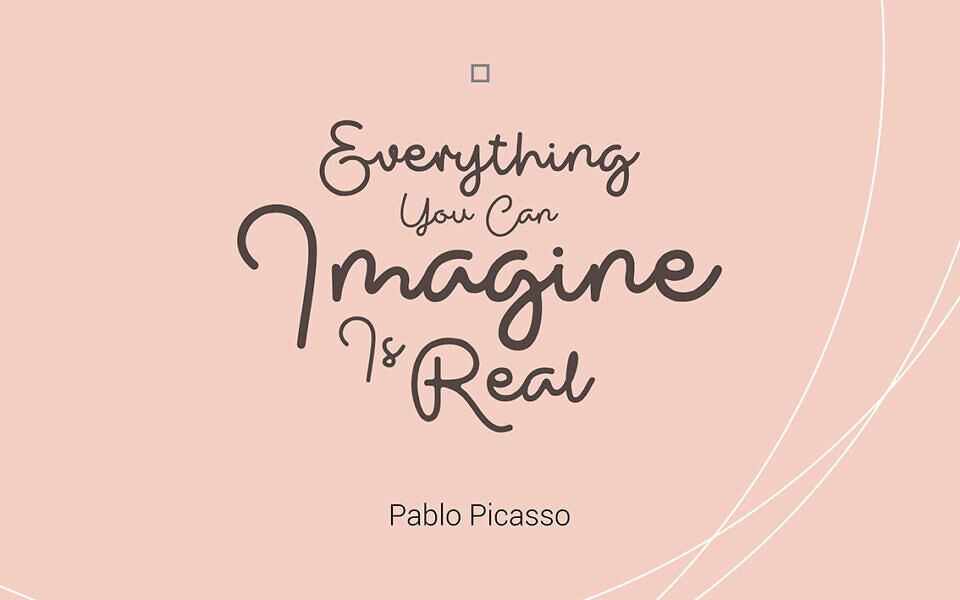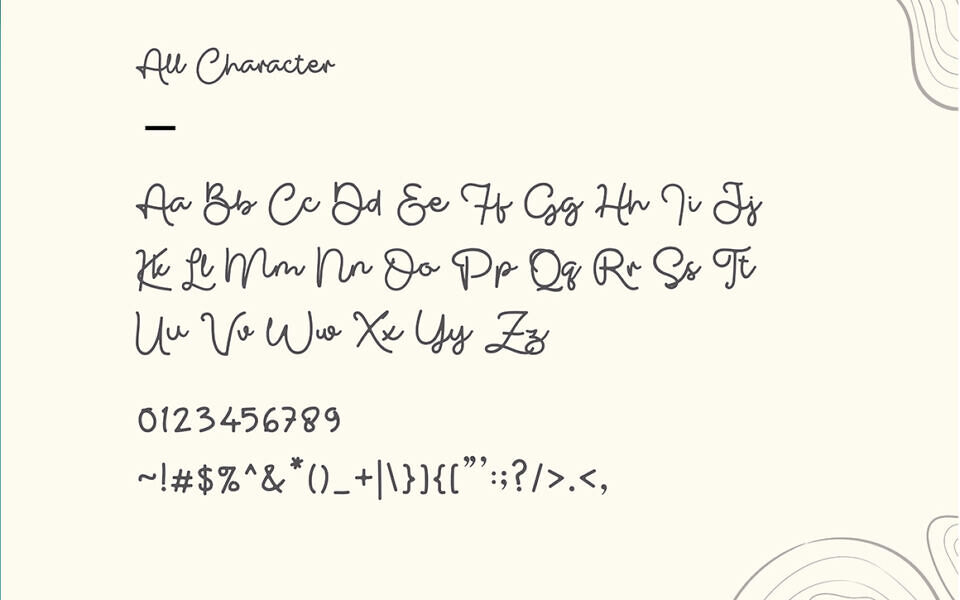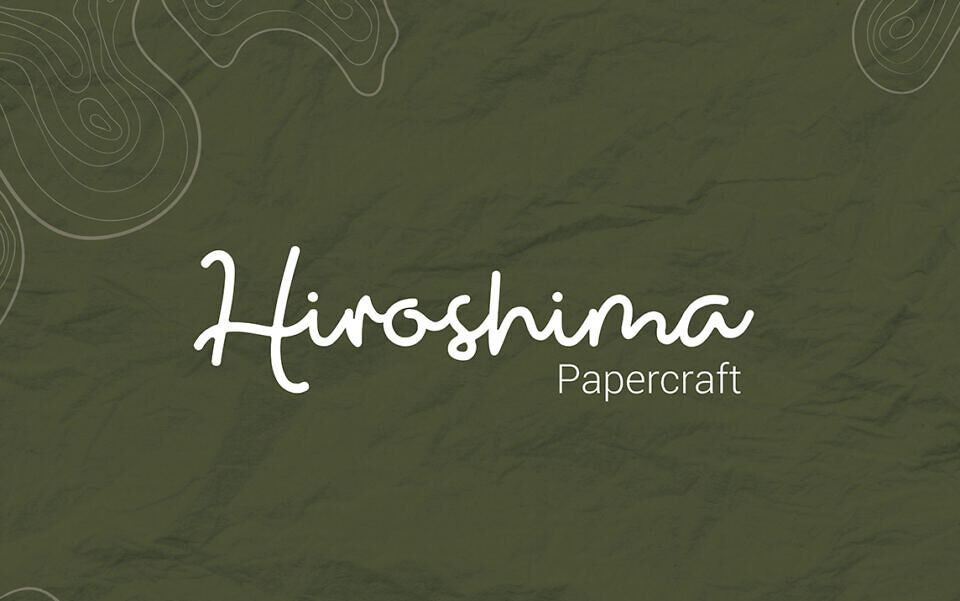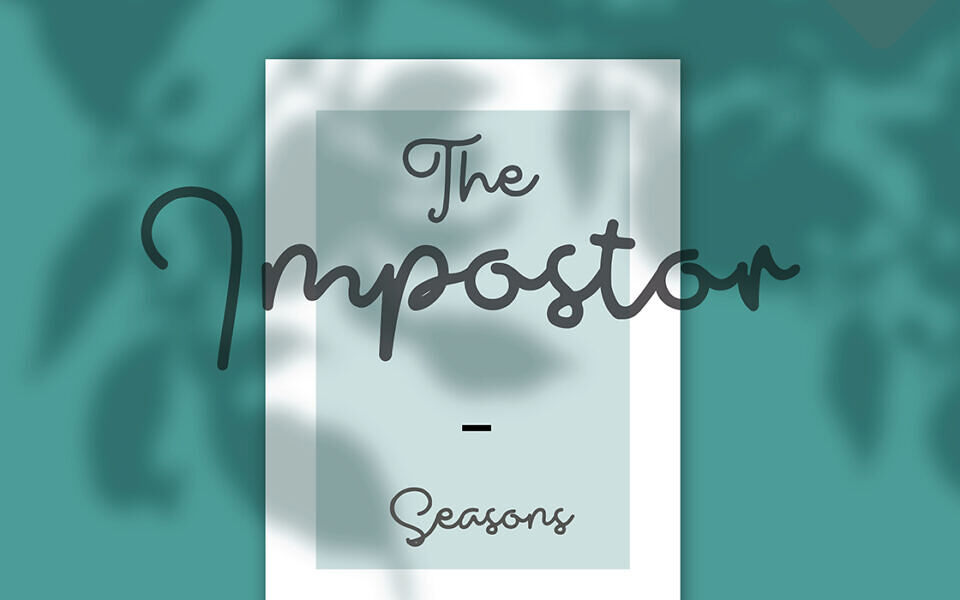
Gasing Font
Gasing is a neat, cute and readable handwritten font. This gentle font will look gorgeous on a variety of design ideas. It will add a joyful and romantic touch to each of your projects. This font is very well written and clear, The glyph are monoline and very carefully crafted. This font has uppercase and lowercase letter.